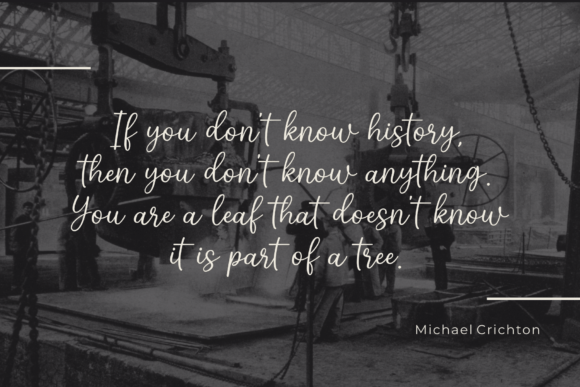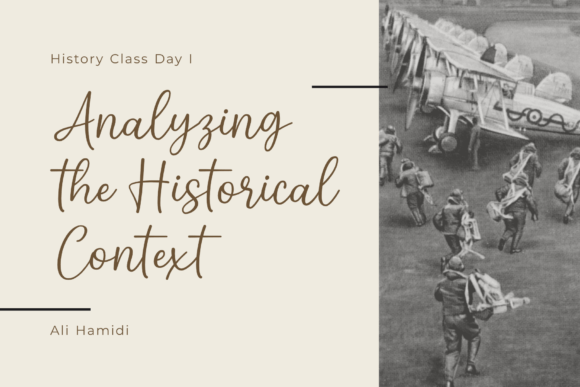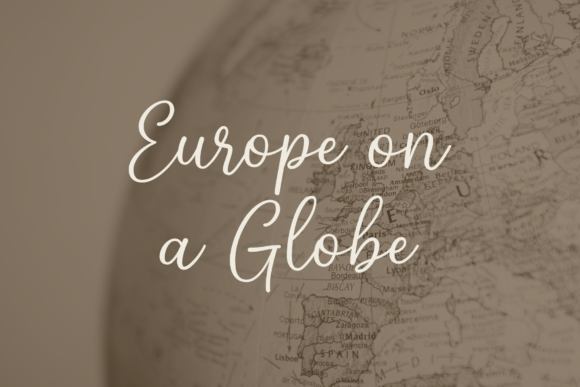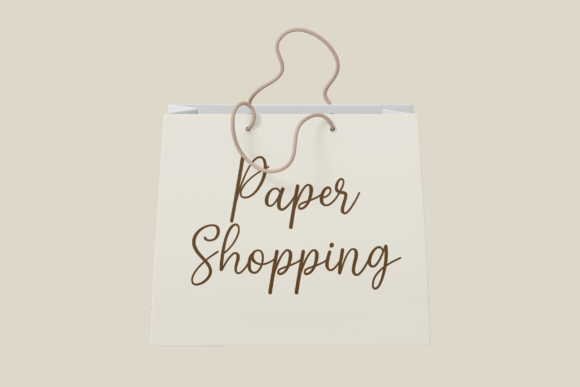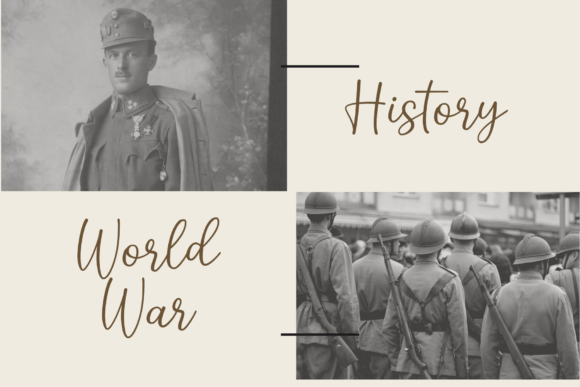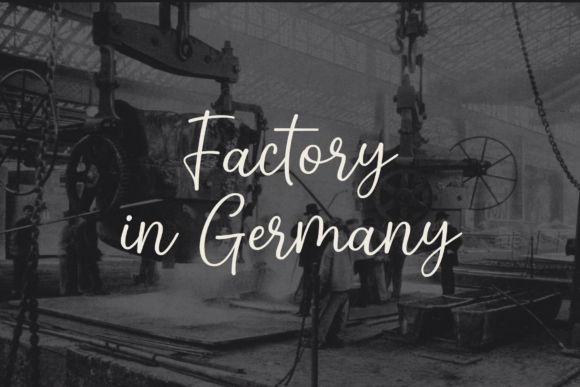
Introducing Blighty Font: The Simple and Sweet Handwritten Font for Creative Projects
Are you a designer or crafter looking for a font that can add a personal touch to your creative projects? Look no further than Blighty Font, a simple and sweet handwritten font that’s perfect for a wide range of applications. In this article, we’ll take a closer look at Blighty Font, its features, and how you can use it to elevate your designs.
What is Blighty Font?
Blighty Font is a beautiful, handwritten font that’s designed to be both simple and sweet. Its clean lines and effortless flow make it perfect for creating visually appealing designs that are sure to capture your audience’s attention. Whether you’re working on a logo, T-shirt, merchandise, quote, social media post, or advertisement, Blighty Font is an excellent choice.
Key Features of Blighty Font
So, what makes Blighty Font so special? Here are some of its key features:
- Handwritten style: Blighty Font has a beautiful, handwritten style that’s perfect for creating personal and relatable designs.
- Simple and sweet: The font’s simplicity and sweetness make it easy to read and understand, even at small sizes.
- Versatile: Blighty Font is suitable for a wide range of applications, from logos and T-shirts to social media posts and advertisements.
- Easily readable: The font’s clean lines and clear letterforms make it easily readable, even for audiences with visual impairments.
Use Cases for Blighty Font
Blighty Font is an incredibly versatile font that can be used for a wide range of creative projects. Here are some use cases to get you started:
- Logos: Create a memorable and personal logo for your brand or business with Blighty Font.
- T-shirts and merchandise: Add a personal touch to your T-shirts, hoodies, and other merchandise with Blighty Font.
- Quotes and posters: Create inspiring and visually appealing quotes and posters with Blighty Font.
- Social media posts: Elevate your social media posts with Blighty Font and make them stand out from the crowd.
- Advertising: Use Blighty Font in your advertisements to create a personal and relatable tone.
Why Choose Blighty Font?
So, why should you choose Blighty Font for your creative projects? Here are some reasons:
- Unique and personal: Blighty Font adds a unique and personal touch to your designs, setting them apart from others.
- Easy to read: The font’s clean lines and clear letterforms make it easily readable, even at small sizes.
- Versatile: Blighty Font can be used for a wide range of applications, making it a great addition to your font library.
- High-quality: Blighty Font is a high-quality font that’s designed to deliver exceptional results.
In conclusion, Blighty Font is a simple and sweet handwritten font that’s perfect for designers and crafters looking to add a personal touch to their creative projects. Its versatility, readability, and unique style make it an excellent choice for a wide range of applications. Whether you’re working on a logo, T-shirt, merchandise, quote, social media post, or advertisement, Blighty Font is sure to deliver exceptional results.